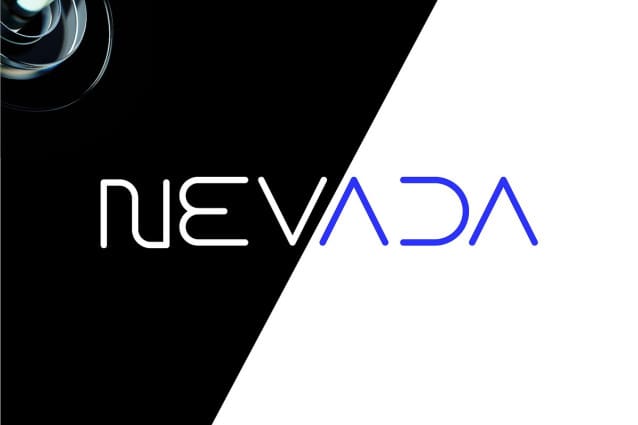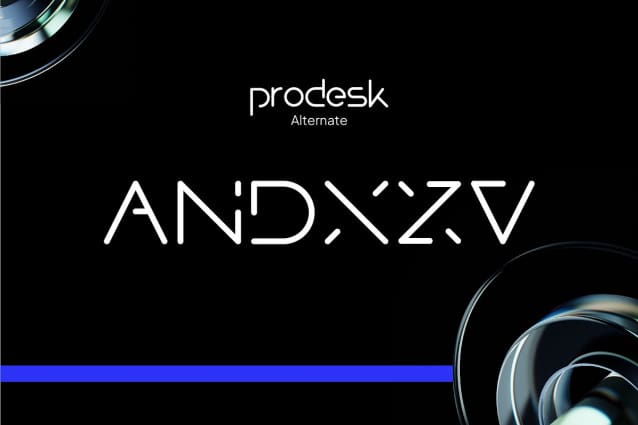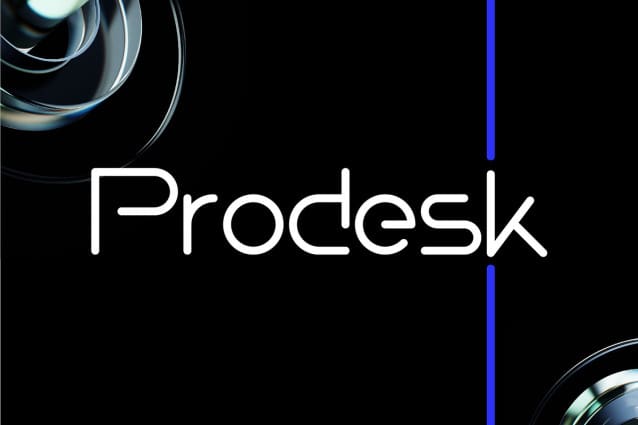
Prodesk Futuristic Font
Prodesk Futuristic Font is a modern minimalist futuristic sci-fi typeface, perfect for technology, science, and future theme projects; it can perform best as a headline, title, logo, and many more.